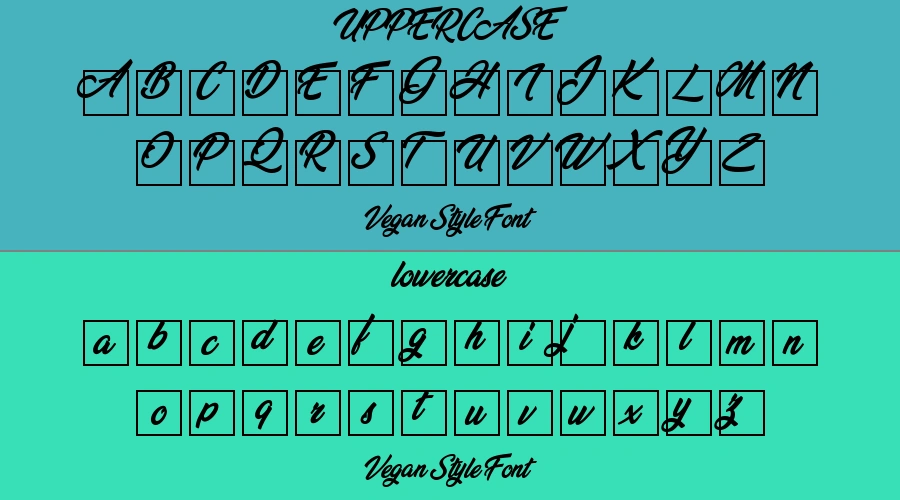
About Vegan Style Font
Vegan Style Font stands out for its distinctive combination of precise alignment and durability. Ideal for corporate identity, it provides the adaptability and practical utility that professional projects demand. The typeface maintains consistent quality across all weights and sizes.
Key features include refined transitional forms and practical mid-word alternates, enhancing typographic expression. In regulatory documents applications, Vegan Style Font demonstrates exceptional multi-color registration. The terminal style and professional credibility contribute to its distinctive character and professional appeal.